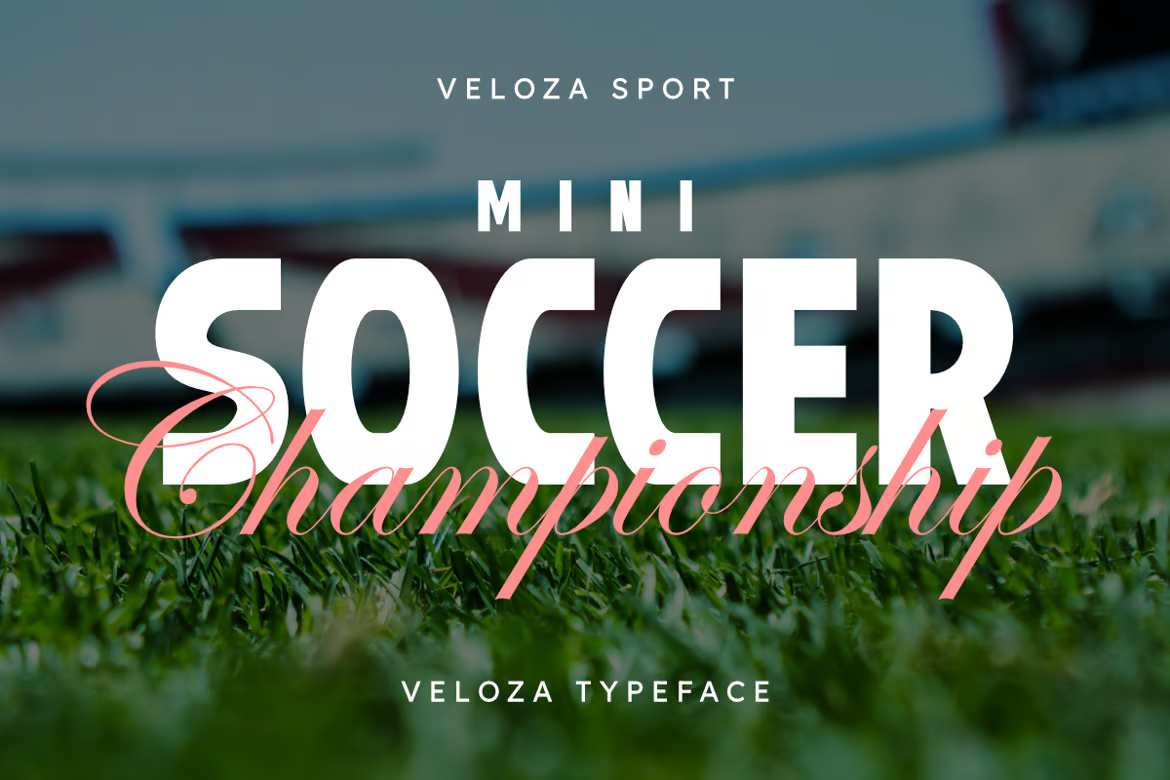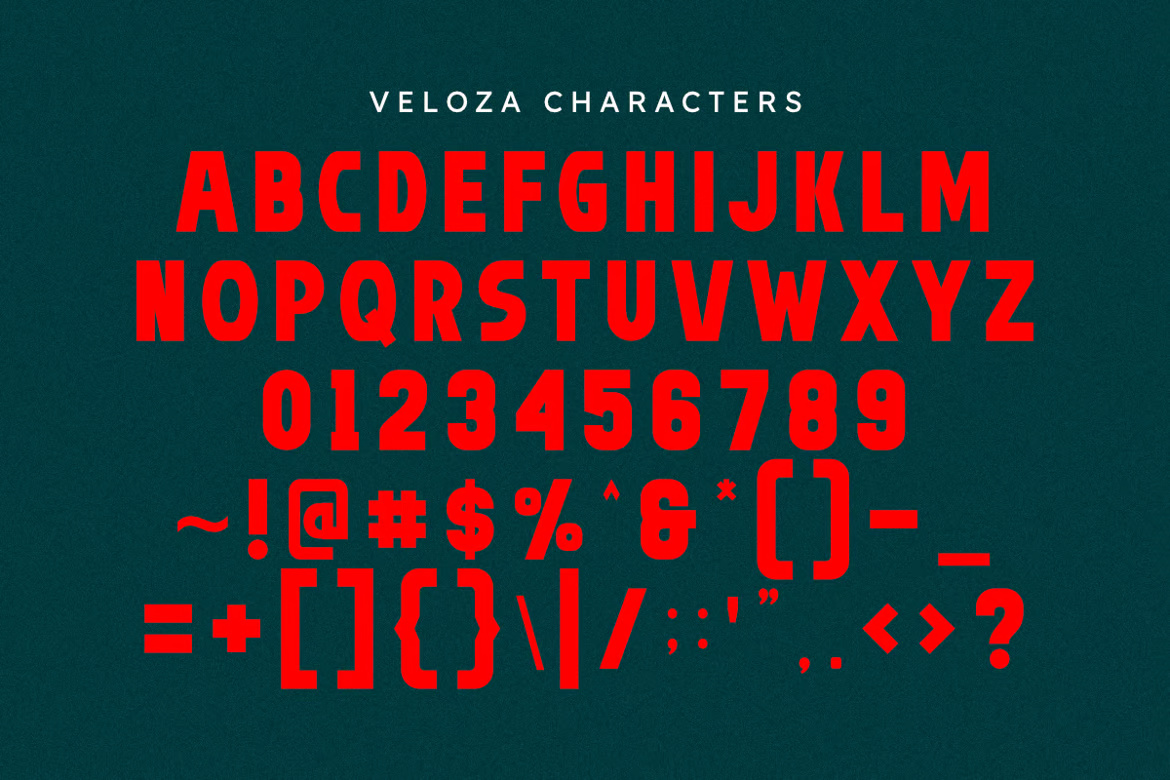
Veloza – Bold Vintage Display Sans Serif Font
Veloza is a bold vintage display sans-serif font that blends retro charm with a contemporary edge. Crafted for maximum impact, this typeface is ideal for logos, branding, posters, headlines, merchandise, and product promotions. Its clean lines and commanding presence make your designs stand out with ease.